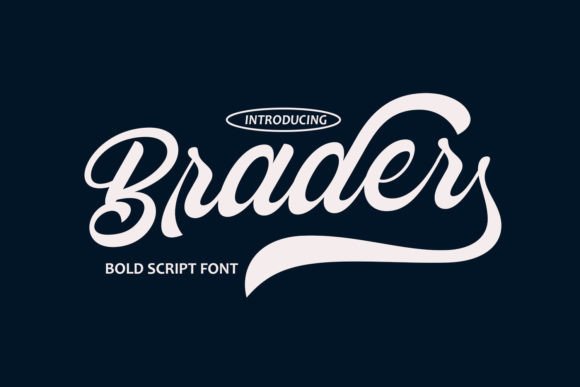
Brader Font: A Bold Script Font for Making a Strong Visual Impact
In the world of typography, fonts play a crucial role in conveying messages, expressing emotions, and creating a lasting impression. Among the numerous fonts available, Brader Font stands out as a bold script font designed to make a strong visual impact. Characterized by its thick, confident strokes and dynamic curves, Brader is perfect for projects that require a touch of boldness and creativity.
What is Brader Font?
Brader Font is a bold script font that exudes confidence and creativity. Its thick, confident strokes and dynamic curves make it an ideal choice for projects that demand attention and boldness. The font’s unique design ensures that it stands out from the crowd, making it perfect for branding, headlines, and promotional materials.
Brader Font is not just a font; it’s a statement piece. It’s designed to make a lasting impression on the viewer, conveying a sense of boldness and creativity. Whether you’re looking to create a strong brand identity or simply want to add some excitement to your promotional materials, Brader Font is the perfect choice.
Key Features of Brader Font
- Bold and Confident Strokes: Brader Font features thick, confident strokes that make it stand out from other fonts.
- Dynamic Curves: The font’s dynamic curves add a touch of elegance and sophistication, making it perfect for high-end branding and promotional materials.
- Perfect for Branding: Brader Font is designed to create a strong visual impact, making it perfect for branding and logo design.
- Versatile: The font is versatile and can be used for a variety of projects, including headlines, promotional materials, and more.
Examples of Brader Font in Use
Brader Font is perfect for a variety of projects, including:
- Branding and Logo Design: Use Brader Font to create a strong brand identity that stands out from the competition.
- Headlines and Titles: Add some excitement to your headlines and titles with Brader Font’s bold and confident strokes.
- Promotional Materials: Use Brader Font to create eye-catching promotional materials, such as brochures, flyers, and posters.
- Advertising: Brader Font is perfect for advertising, where boldness and creativity are essential.
Benefits of Using Brader Font
Using Brader Font offers several benefits, including:
- Instant Recognition: Brader Font’s bold and confident strokes ensure instant recognition, making it perfect for branding and advertising.
- Emotional Connection: The font’s dynamic curves and bold strokes create an emotional connection with the viewer, making it perfect for high-end branding and promotional materials.
- Versatility: Brader Font is versatile and can be used for a variety of projects, making it a great addition to any designer’s toolkit.
- Time-Saving: With Brader Font, designers can save time and effort, as the font is designed to make a strong visual impact, eliminating the need for extensive design work.
Tips for Effective Use of Brader Font
To get the most out of Brader Font, follow these tips:
- Use it Sparingly: Use Brader Font sparingly to create a strong visual impact. Overusing the font can dilute its effectiveness.
- Pair it with Other Fonts: Pair Brader Font with other fonts to create a unique and visually appealing design.
- Experiment with Colors: Experiment with different colors to find the perfect combination that works with Brader Font.
- Consider the Context: Consider the context in which Brader Font will be used. Ensure that the font aligns with the project’s tone and message.
In conclusion, Brader Font is a bold script font designed to make a strong visual impact. Its thick, confident strokes and dynamic curves make it perfect for projects that require a touch of boldness and creativity. Whether for branding, headlines, or promotional materials, Brader Font delivers a powerful visual statement. By understanding the font’s key features, usage examples, benefits, and tips for effective use, designers can harness the power of Brader Font to create stunning designs that leave a lasting impression.
With Brader Font, designers can add a touch of boldness and creativity to their designs, making it a great addition to any designer’s toolkit. So, why settle for ordinary fonts when you can make a statement with Brader Font?